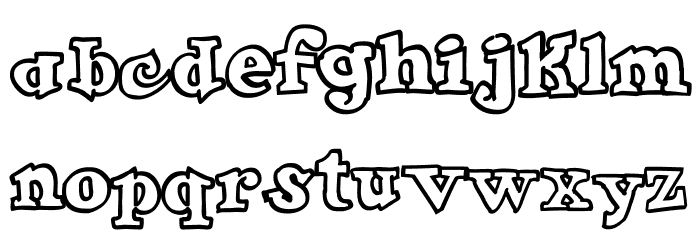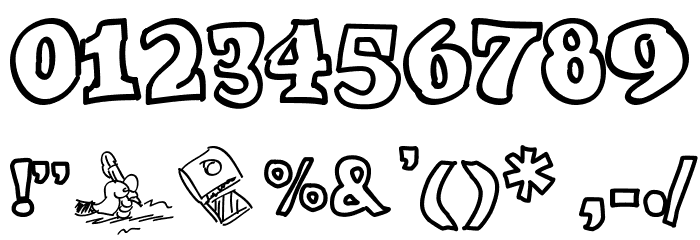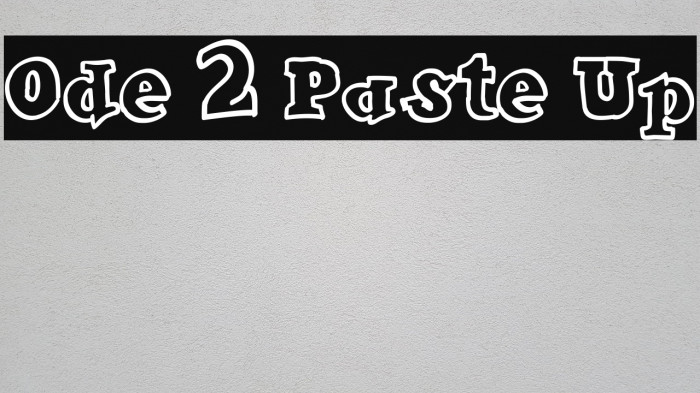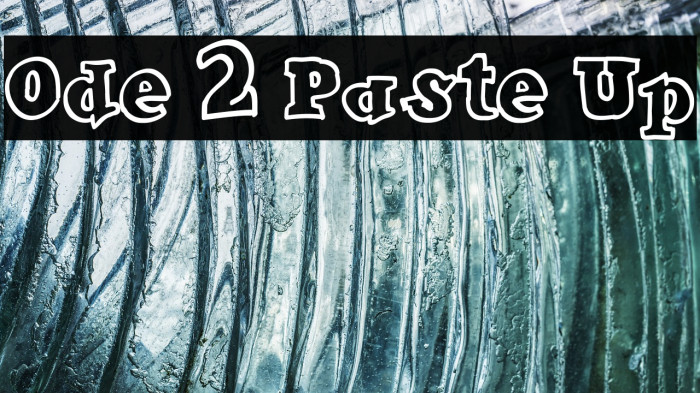
Ode 2 Paste Up Font
This font features a playful and bold style, characterized by its thick, uneven strokes and a hand-drawn appearance. The letters have a whimsical, cartoon-like quality with exaggerated serifs and a slightly irregular baseline, giving it a lively and dynamic feel. The numbers and special characters maintain this playful aesthetic, making the font suitable for creative and informal designs. Its unique style is reminiscent of cut-out letters, adding a touch of nostalgia and fun to any project.
A playful, bold font with a hand-drawn, cartoon-like style.
- Proposed Projects: Ideal for children's books, comic strips, playful posters, and creative branding projects.
- Overall Style: Playful, Cartoonish, Hand-drawn
- Use Case: Headlines, Posters, Creative Branding